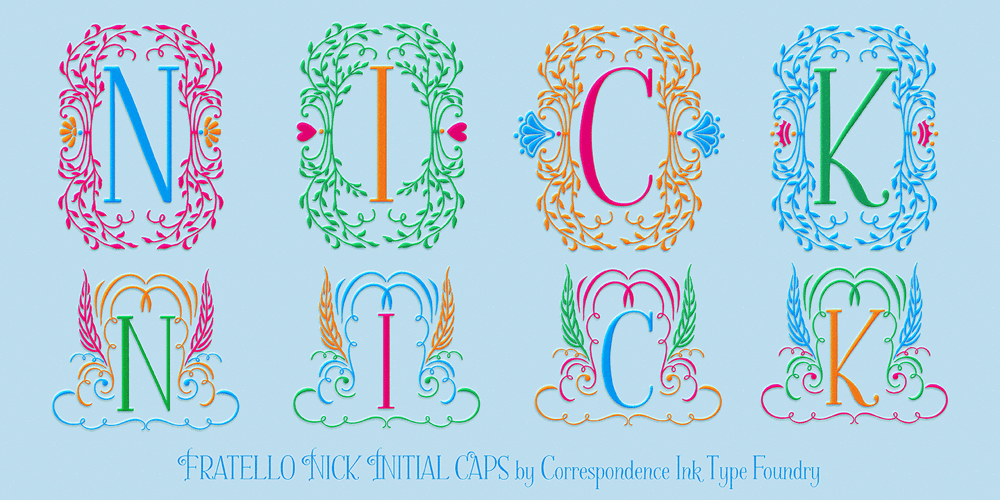
Fratello Nick Font Family was designed by Brian J. Bonislawsky, Debi Sementelli and published by Correspondence Ink. Fratello Nick contains 11 styles and family package options. I have a new baby sister! Check her out in her crib: Cinque Donne Fratello Nick is a hand-lettered text with 1160 glyphs to play with. It was inspired by my beautiful red-headed son Nick. ( Read the inspiration behind the font below.) There are 15 fonts in the family. Both the Regular and Pro come in a variety of weights: Regular, Bold, Italic and Bold Italic. Also included are fun accessories like Initial Caps, 94 ornaments, 82 frames, two sets of Initial Caps (one allows you to insert special ornaments in the side insets!), a 3-letter Monogram font and three different Split Monogram fonts! (Each one has two different options when you type using upper or lower case… plain, flowers, bunnies, birds and butterflies!) It can be simple and sweet or bring a touch of flair and whimsy to your project with any of its fun alternate letters. There are nine different uppercase alphabet sets! Additional features include: Roman numerals, fractions, ordinals, Greek symbols, all caps and small caps. It also includes Western and Central European, Romanian and Turkish language support. Fratello Nick is perfect for chapter headers and the license is good for static images for print and ebooks. Here’s the story of the inspiration behind the font: Once upon a time, there was a red headed boy named Nicolas who loved to read books. So his mother would have him curl up in her lap and read to his heart’s content. And this made Nicolas a very happy boy. The years have passed and Nicolas now goes by Nick. He went to college in Washington, D.C. where he was a handler for Jack the Bulldog ( R.I.P.) and became a Nationals fan. He lives and works there and knows the Metro like the back of his hand. But he can smoke a rack of ribs like the true Texas boy he is. He still loves to read. And that makes Nick a very happy man. His mom (me) was inspired to hand letter this font to honor this boy she loves so much. Because raising a boy who becomes a wonderful man is something to celebrate. The moral of the story? Cuddling with books always leads to good things. I hope Fratello Nick will be a part of helping you create stories of your own. Birds, butterflies and bunnies included in the font remind me of the themes of many of the bedtime stories we used to read. And now that Nick is of the marrying age, there are cool Ornaments, Initial Caps, Frames and Monograms that would work well for wedding invitations. But who’s rushing anything:) While it’s technically a hand drawn text font, you’ll find lots of fun flourishes added to the abundance of upper and lower case letters giving it that “scripty” feel. You’ll also find a set of Caps and Small caps to use in a variety of ways. Easily combine the Monogram font with one of the 82 frames to make it unique. Like a book that just can’t be put down, you’ll want to spend lots of time exploring all the possibilities! By the way, fratello means “Brother” in Italian. Nick is one of two brothers. His younger brother Alex is the extreme opposite but just as wonderful. So you know a “Fratello Alex” font is in the future! For cutting machine crafters I specifically designed the letters at a good width for cutting and made sure the ornaments are ready to make in multi color. You’ll also love the many options available to create framed monograms or signage and designs for all of your projects. Check out our other script fonts Belluccia and Dom Loves Mary and my Cantoni font at Debi Sementelli Font Foundry. Be sure to check out the “Buying Choices” to see the specially priced collections we’ve put together for you. Get more and spend less!